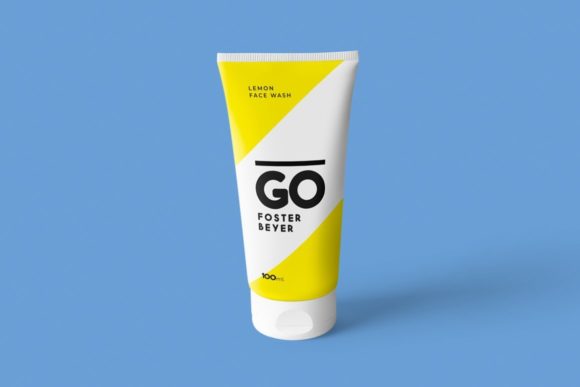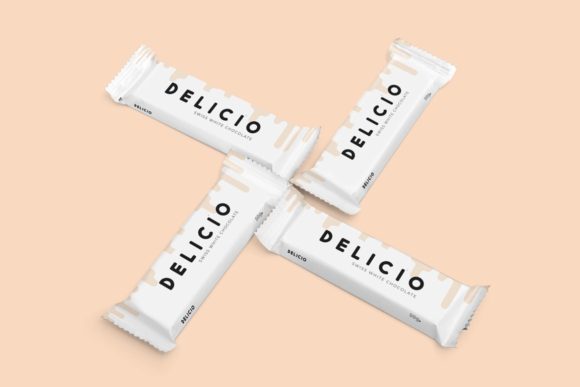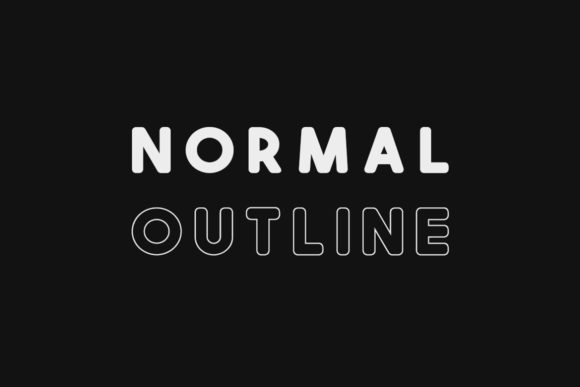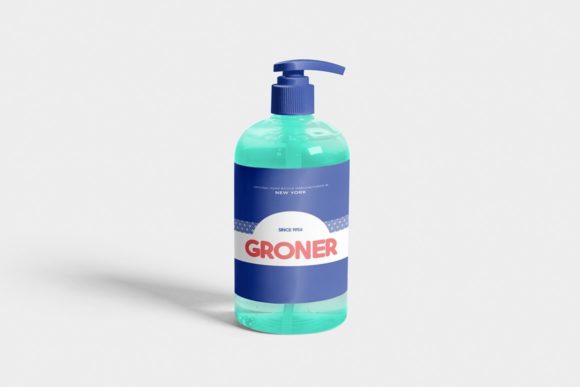
Flix Font: Elevate Your Designs with a Modern and Sleek Touch
In the world of design, typography plays a crucial role in conveying the message and aesthetic of a project. A font can make or break the visual appeal of a design, and that’s why designers and crafters are always on the lookout for unique and versatile typefaces. One such font that has gained popularity in recent times is the Flix Font. In this article, we’ll explore what makes Flix Font special and how you can incorporate it into your designs to give them a smart and cool touch.
What is Flix Font?
Flix Font is a clean, thick lettered, and modern display font that has taken the design world by storm. Its minimalist and techno-styled aesthetic makes it perfect for a wide range of applications, from web designs and logos to posters and social media graphics. The font’s sleek and sophisticated look is sure to elevate your designs and give them a professional edge.
Key Features of Flix Font
- Clean and Thick Lettering: Flix Font boasts a clean and thick lettered design that exudes confidence and sophistication.
- Modern Display Font: The font’s modern design makes it perfect for display purposes, such as headlines, titles, and captions.
- Minimalist and Techno Styled: Flix Font’s minimalist and techno-styled aesthetic gives it a unique and futuristic look that’s sure to grab attention.
- Highly Versatile: The font’s versatility makes it suitable for a wide range of applications, from web designs and logos to print materials and social media graphics.
Benefits of Using Flix Font
So, why should you choose Flix Font for your designs? Here are just a few benefits of using this amazing font:
- Instant Professionalism: Flix Font’s sleek and sophisticated design instantly gives your designs a professional edge.
- Improved Readability: The font’s clean and thick lettering makes it easy to read, even at small sizes.
- Enhanced Visual Appeal: Flix Font’s modern and techno-styled aesthetic adds a touch of excitement and energy to your designs.
How to Use Flix Font in Your Designs
Using Flix Font in your designs is easy. Here are a few tips to get you started:
- Pair it with Other Fonts: Flix Font pairs well with other fonts, such as sans-serif fonts like Arial or Helvetica.
- Use it for Headlines and Titles: The font’s bold and modern design makes it perfect for headlines and titles.
- Experiment with Colors: Flix Font looks great in a variety of colors, so don’t be afraid to experiment and find the perfect hue for your design.
In conclusion, Flix Font is a modern and sleek display font that’s perfect for designers and crafters looking to elevate their designs. Its clean and thick lettered design, minimalist and techno-styled aesthetic, and high versatility make it a valuable addition to any design toolkit. Whether you’re working on a web design, logo, or print material, Flix Font is sure to give your project a smart and cool touch. So why wait? Download Flix Font today and take your designs to the next level!